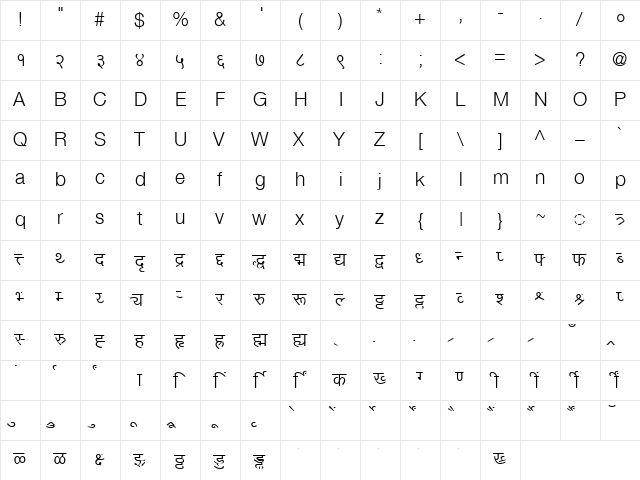
DVBW-TTYogesh Normal
Design Context for DVBW-TTYogesh Typeface
DVBW-TTYogesh offers clean, dependable letterforms without strong stylistic allegiance, making it a practical choice for designers who need flexibility.